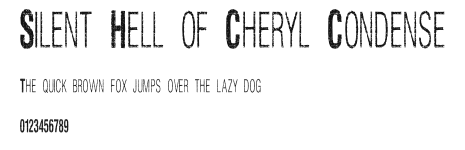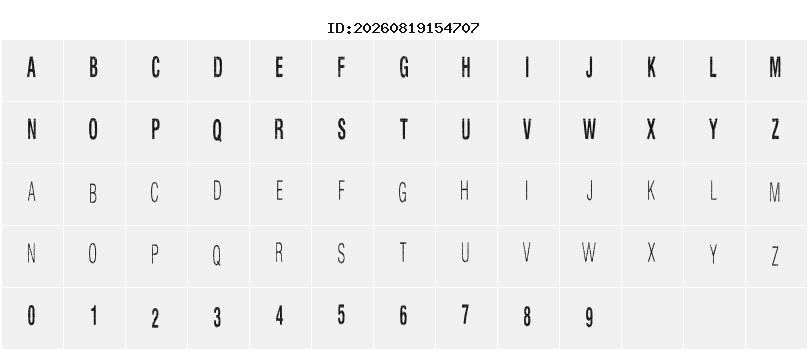
• Font Name: Silent Hell of Cheryl Condense
• Font ID: Silent Hill of Cheryl
• Full Font Name: Silent Hell of Cheryl Condensed
• PostScript Name: New
• Character Count: 90
About Silent Hell of Cheryl Condense.ttf
Silent Hell of Cheryl Condense.ttf is a modern, elegant sans-serif font designed for ultimate readability and visual harmony. Perfect for branding, headlines, web design, and print materials.